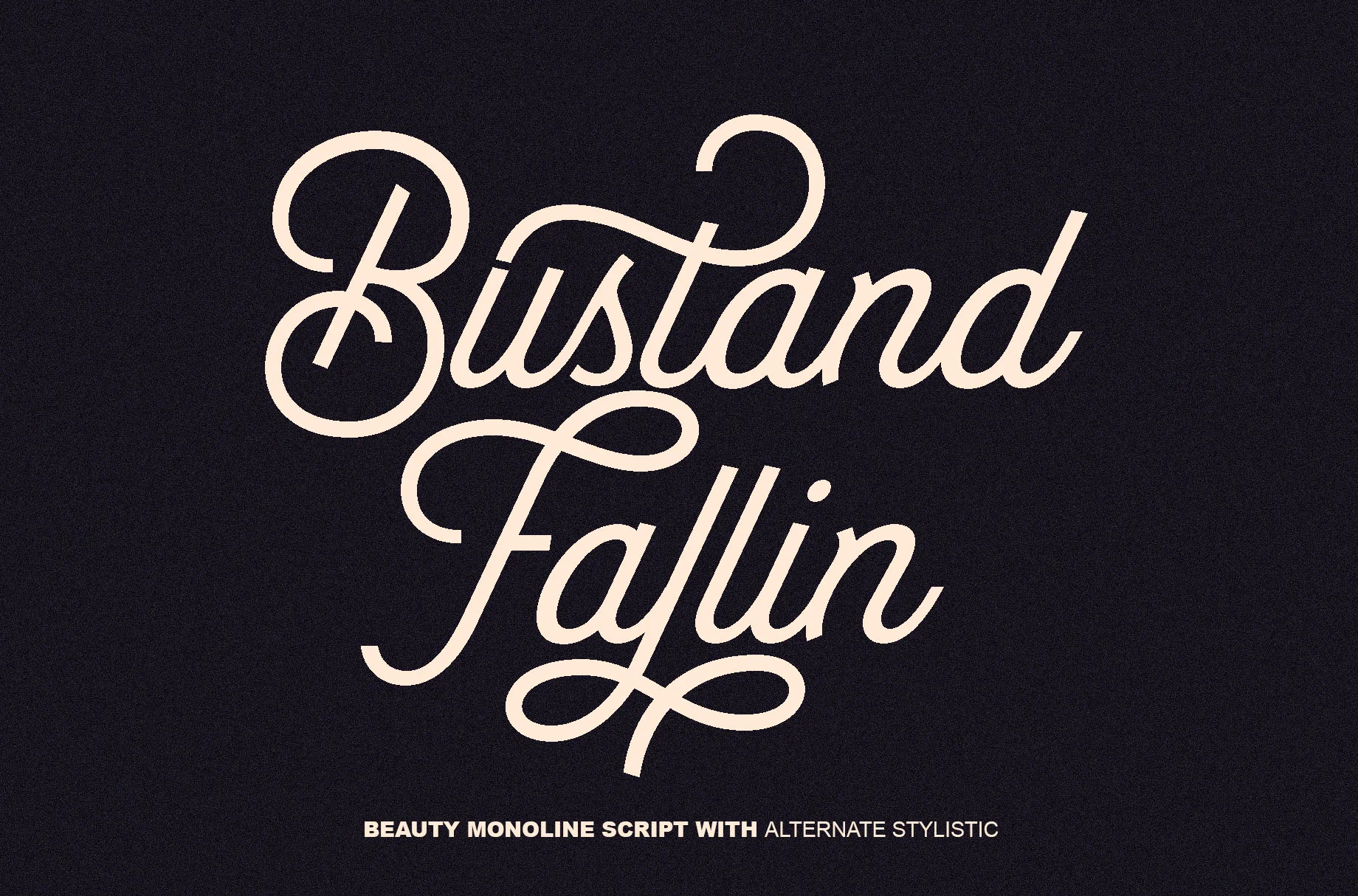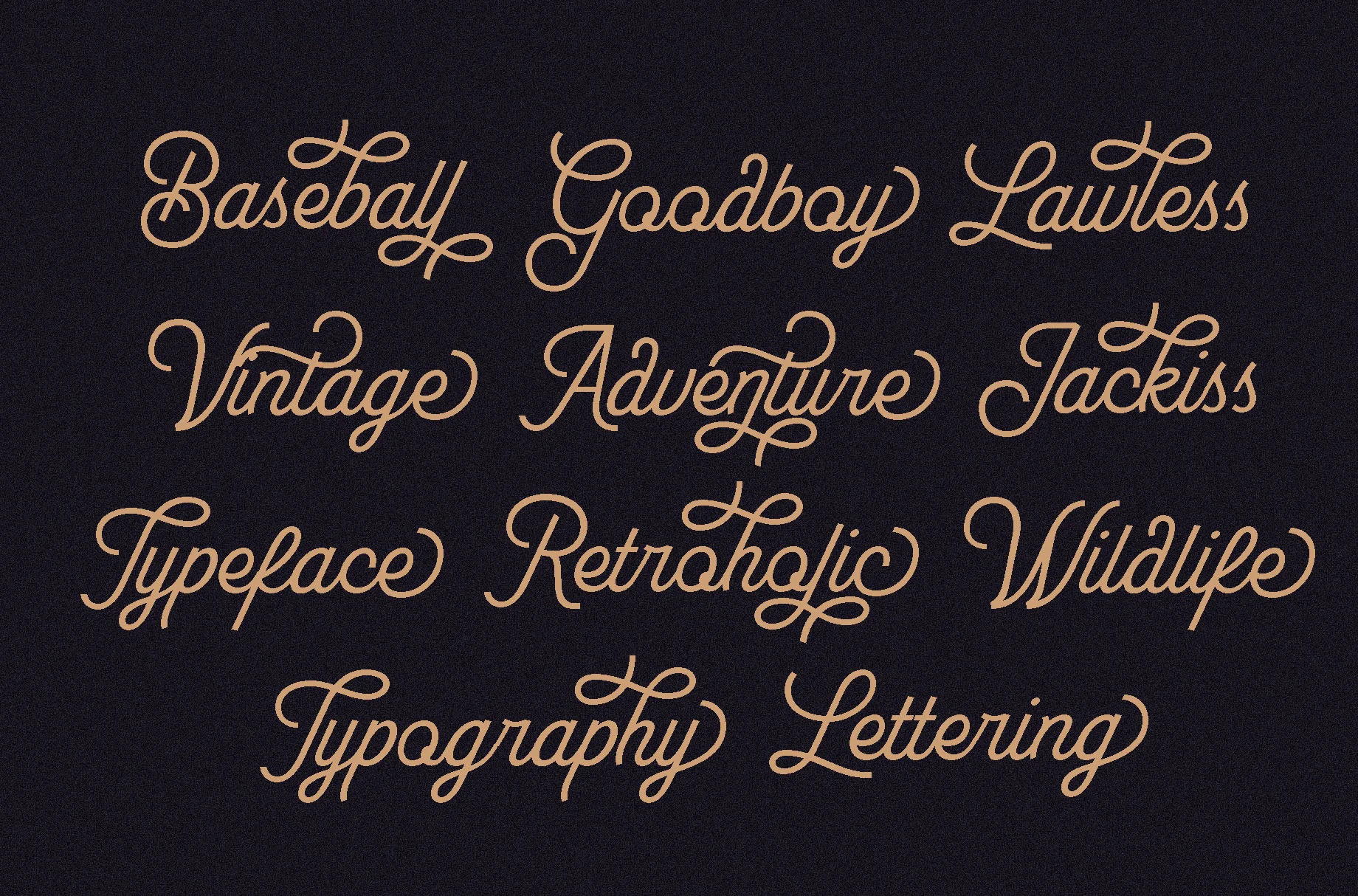
Bustand Fallin
**Bustand Fallin** is a beautiful mono-line font, perfect for logo design, branding, clothing design, signage, posters, wedding invitations and so much more! My goal with this font was to create an easily legible script font which would work for a wide variety of purposes. This font retains my personality within the characters as they were initially based off my own handwriting and later tidied up to create a set of consistent characters. Having that handmade feel and personal touch certainly gives it a hint of authenticity; perfect for any of your upcoming projects. Don't miss out!
**Bustand Fallin** is also included full set of:
* uppercase and lowercase letters
* multilingual support full latin simple language
* numerals
* punctuation
* Stylistic Set
* Alternate